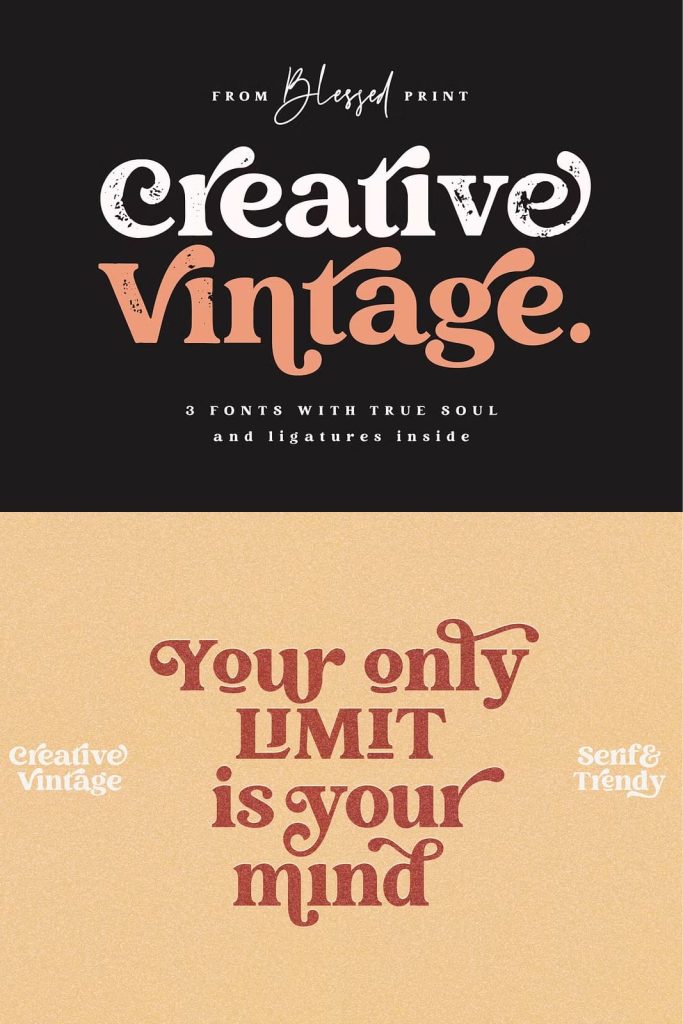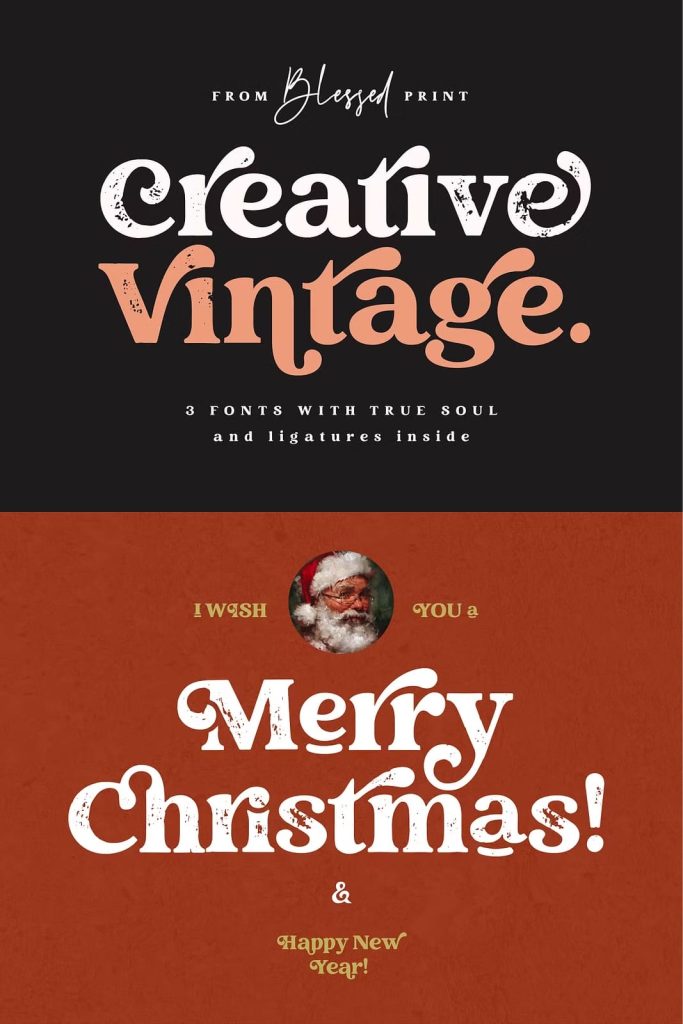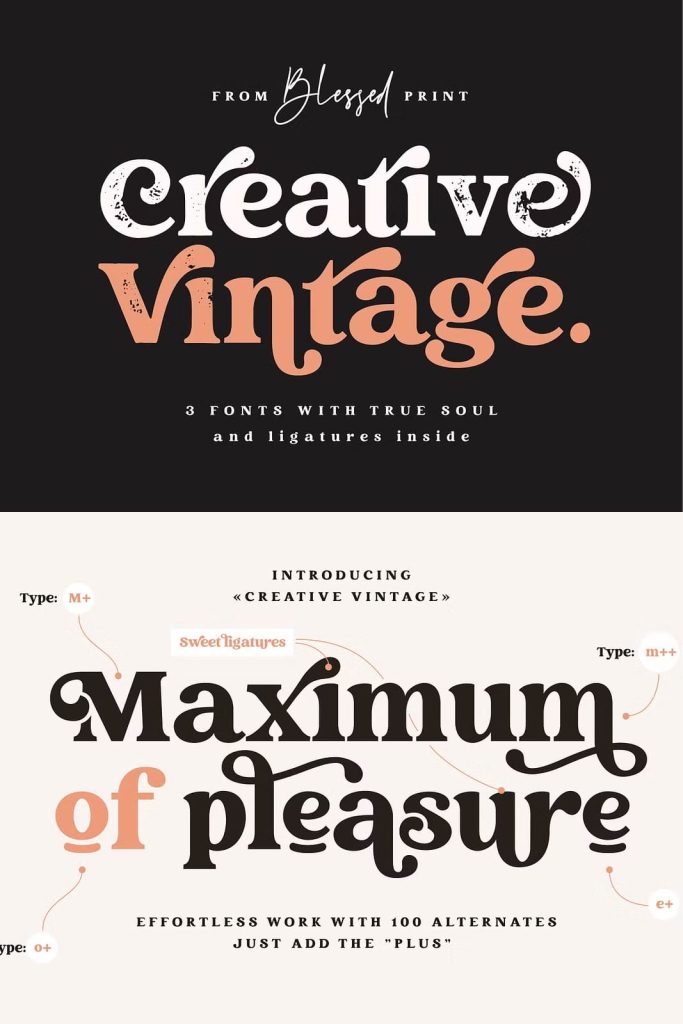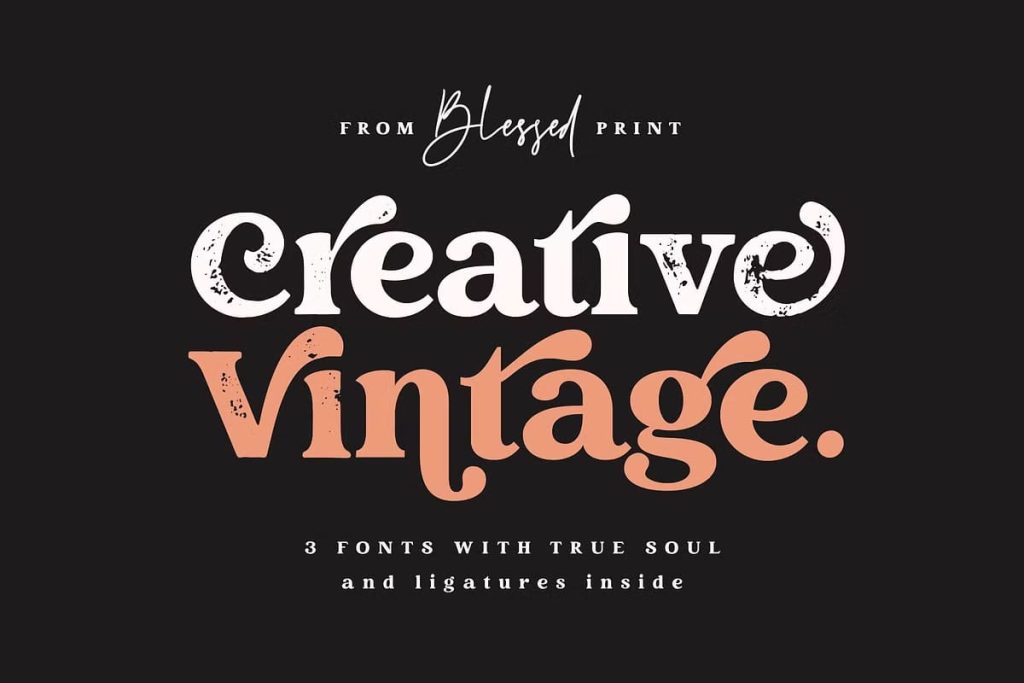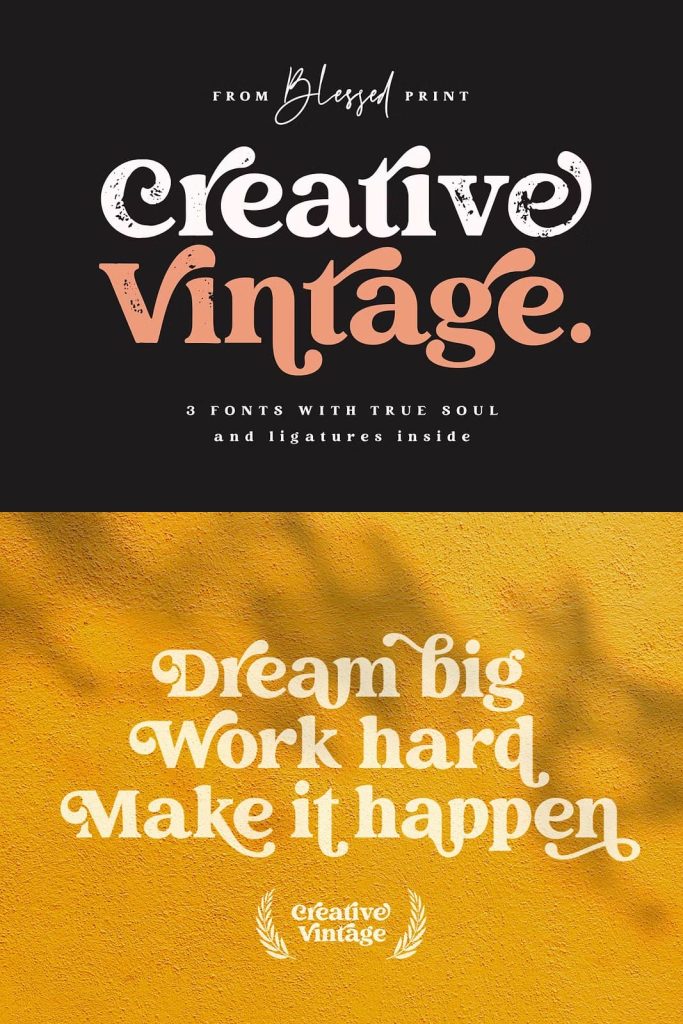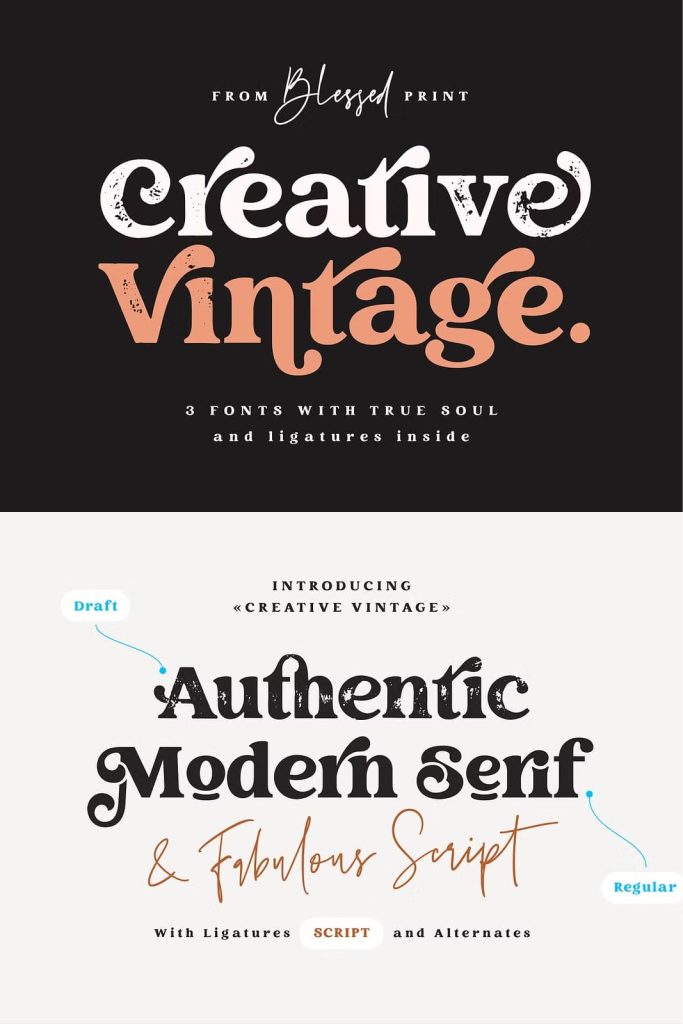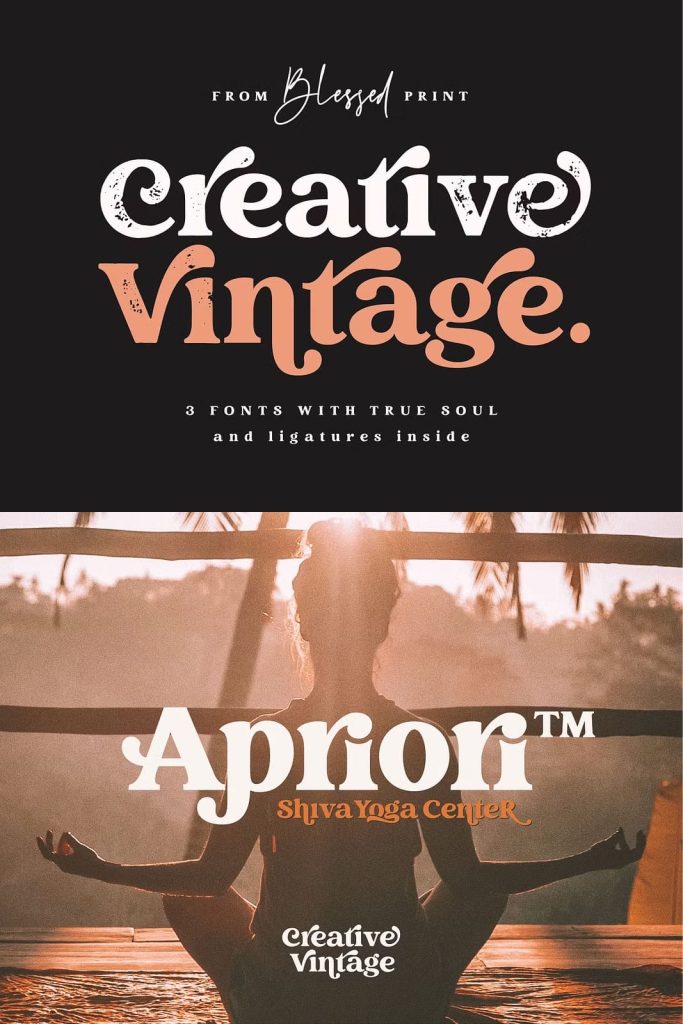
Creative Vintage – a modern serif typeface with vintage charm, fashionable look and retro-modern style
Three fonts that match each other perfectly
Creative Vintage Regular: Opentype serif font with clean shapes and precise kerning. It contains ligatures and alternates with a total of 669 PUA encoded glyphs